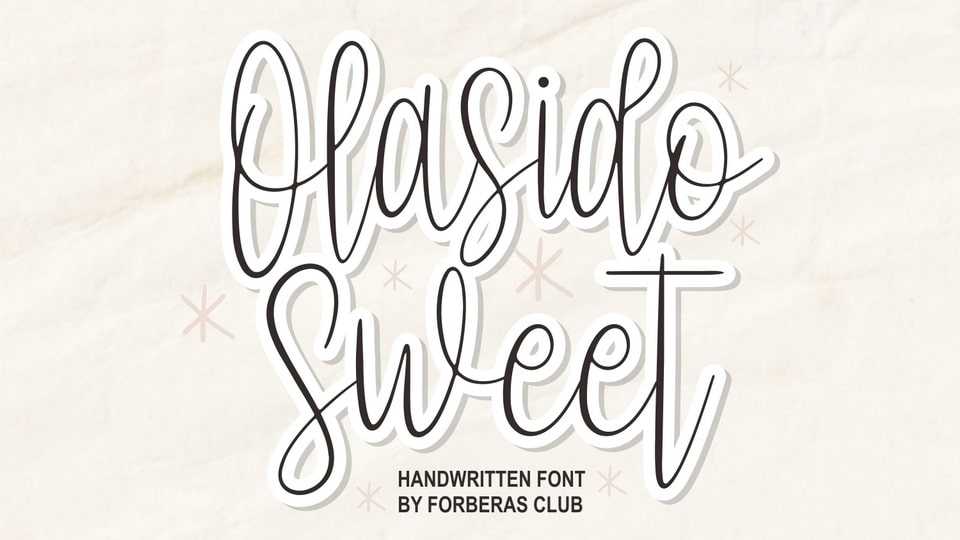
Download Olasido Sweet font, a delicate and stylish handwritten typeface. It has well-balanced and cursive characters that will make your designs stand out.